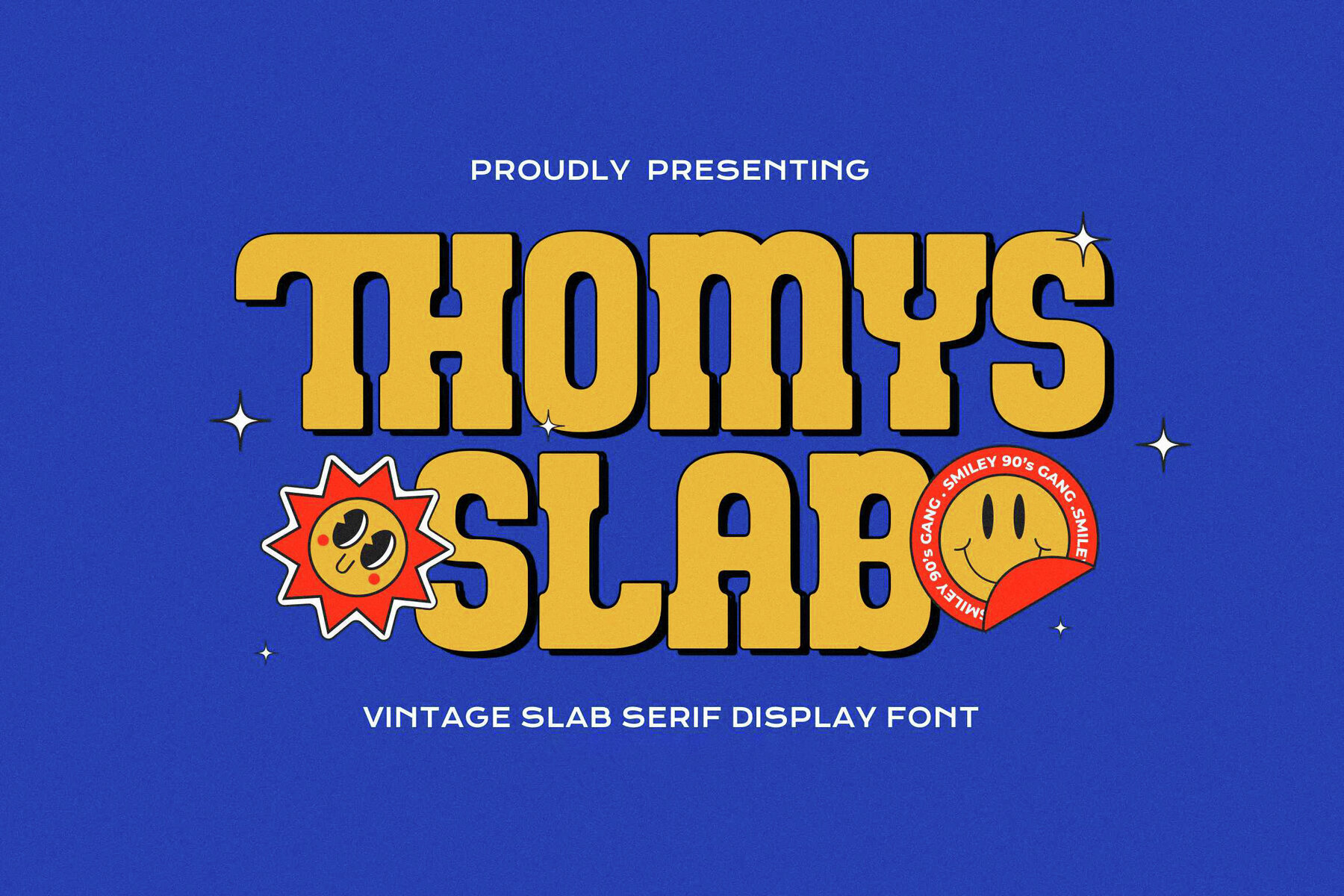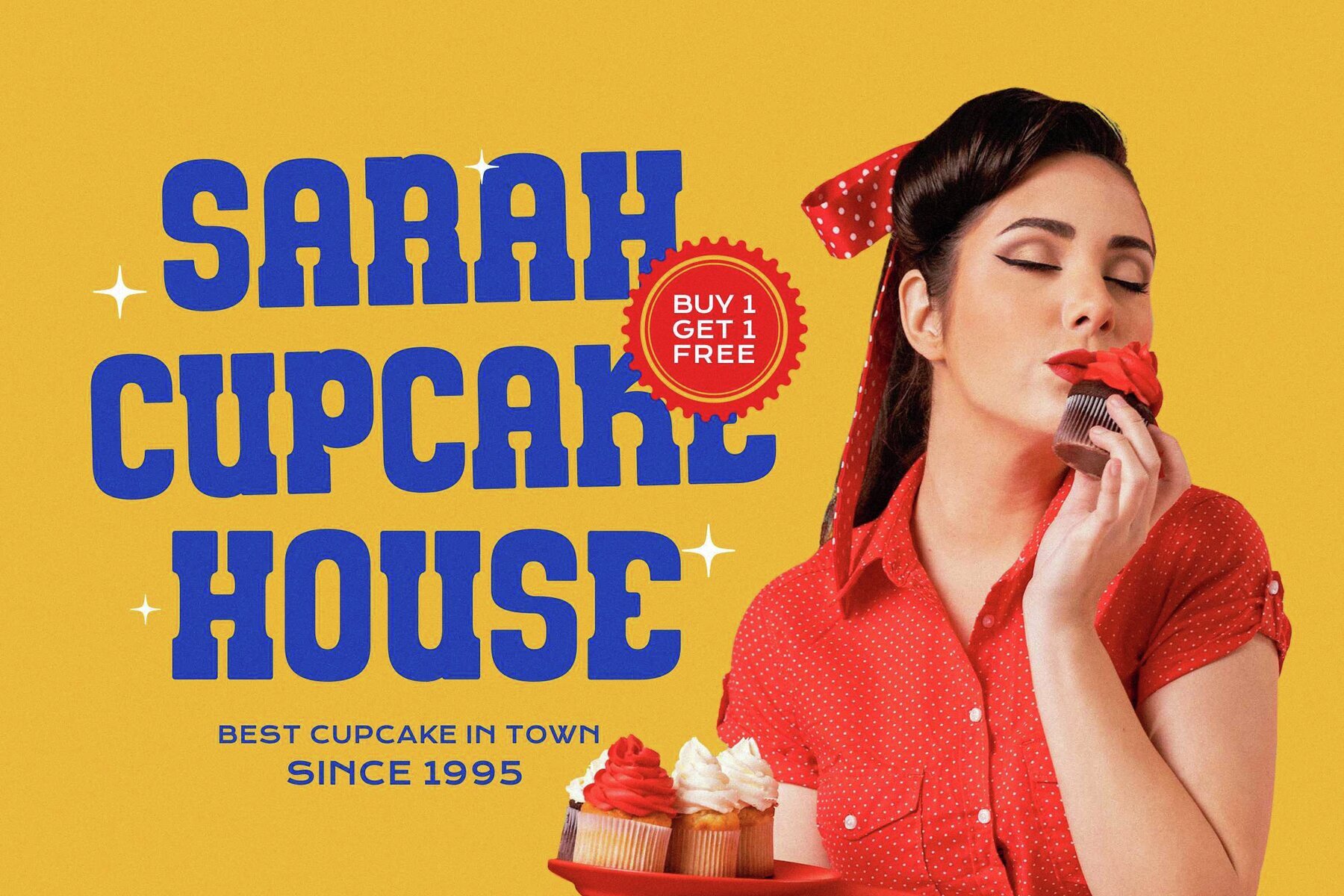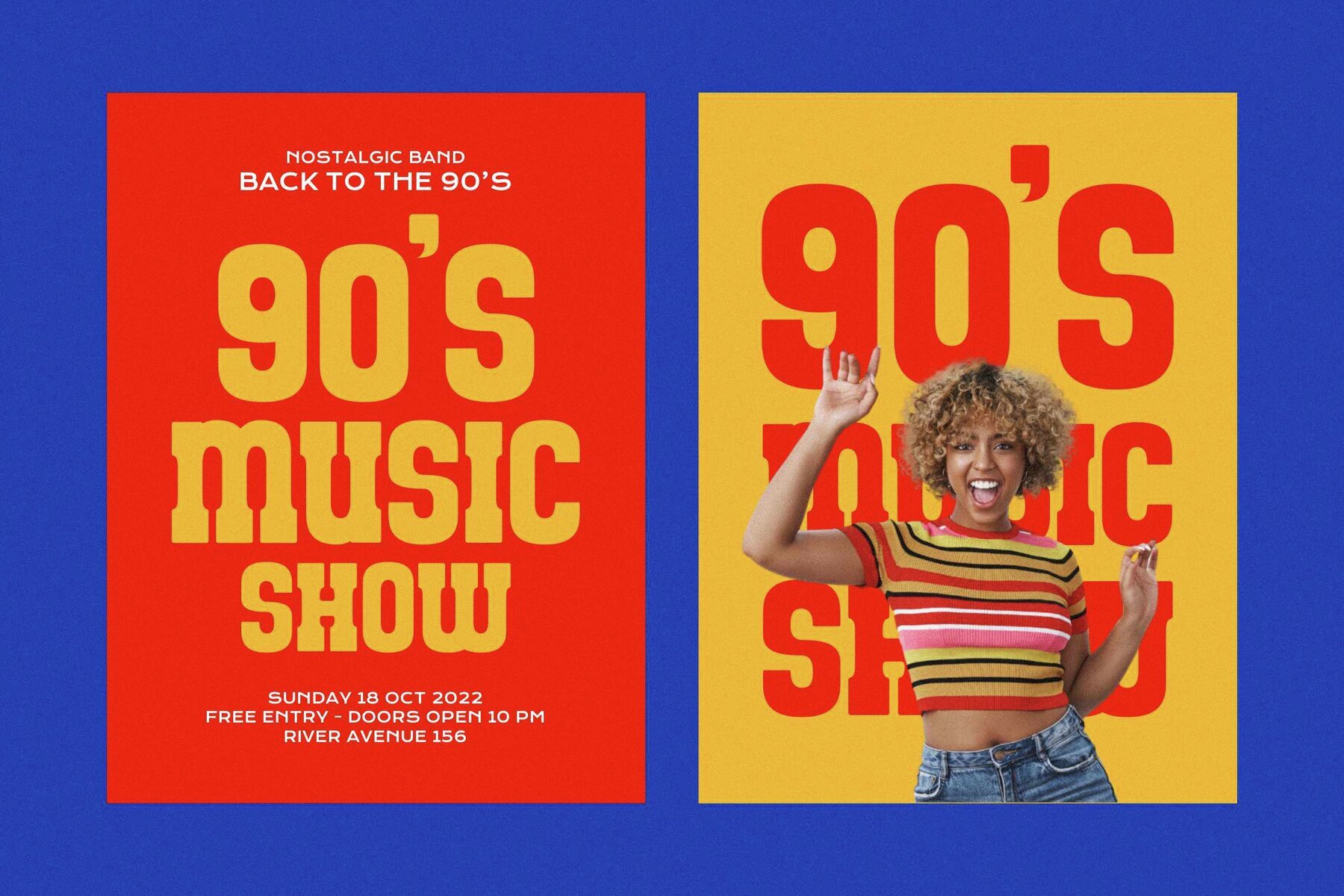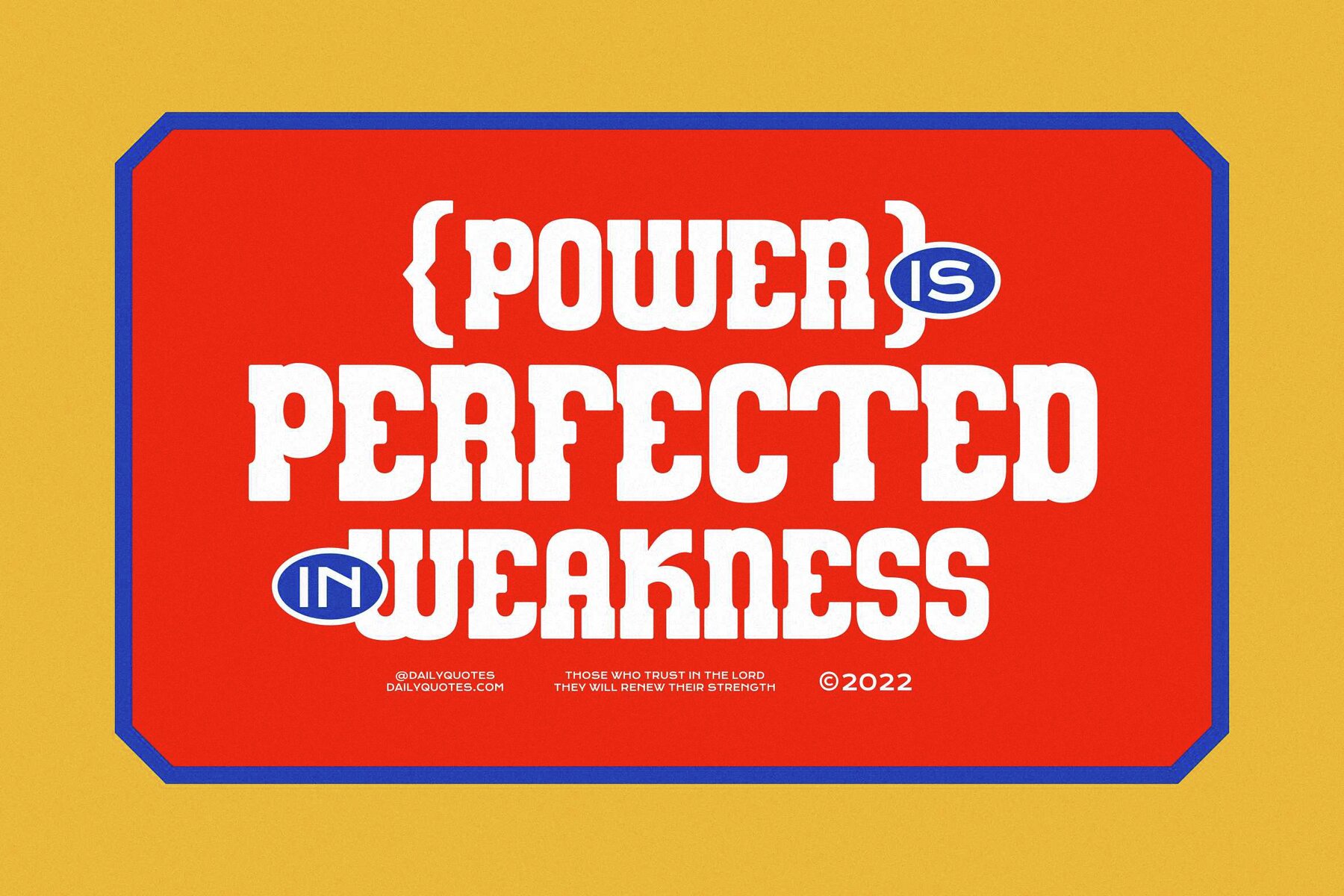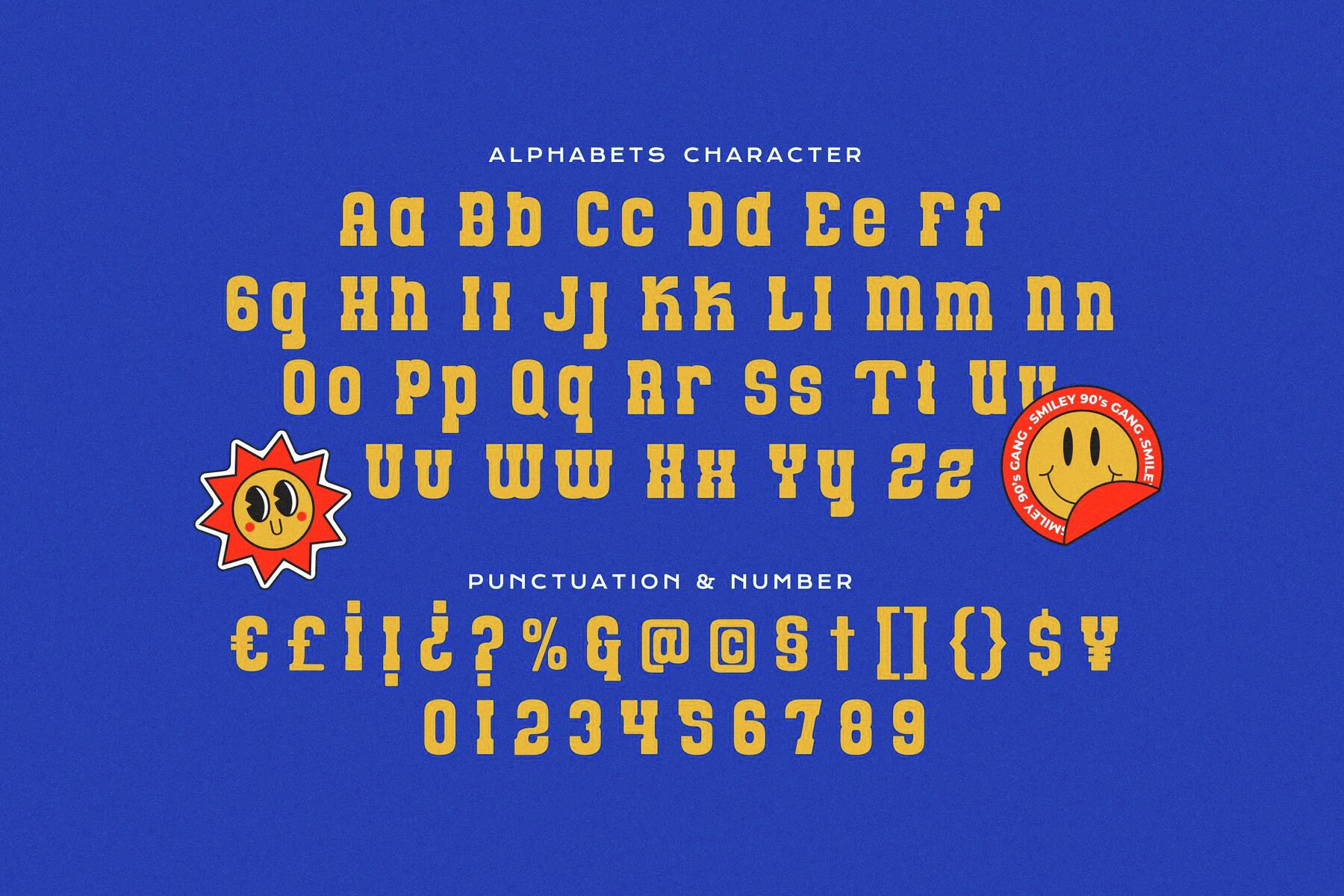
Thomys Slab Font
Thomys Slab Regular
Immerse your designs in the vibrant spirit of the 90s with Thomys Slab, a vintage slab serif that beckons a playful yet professional aesthetic. Anchoring each letterform in solid geometry, this typeface delivers with bold slab serifs and exaggerated curves, creating a unique flair. The font excels in infusing a retro charm to a myriad of projects. Whether it's packaging, social media promotions, dramatic headlines, dynamic event flyers, stylish packaging labels, varsity jackets, restaurant menus, nostalgic signage, timeless concert posters, or distinctive branding, Thomys Slab brings an authentic touch.Thomys Slab: Vintage 90s Slab Serif Typeface